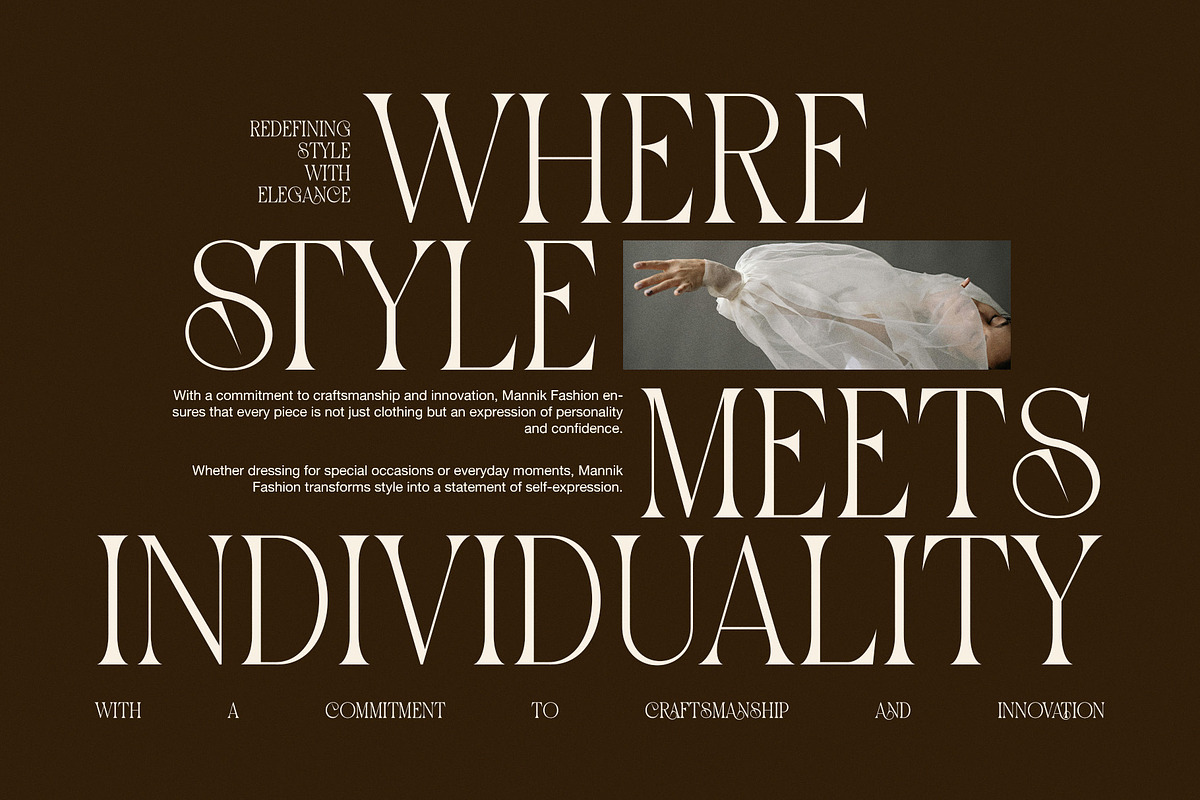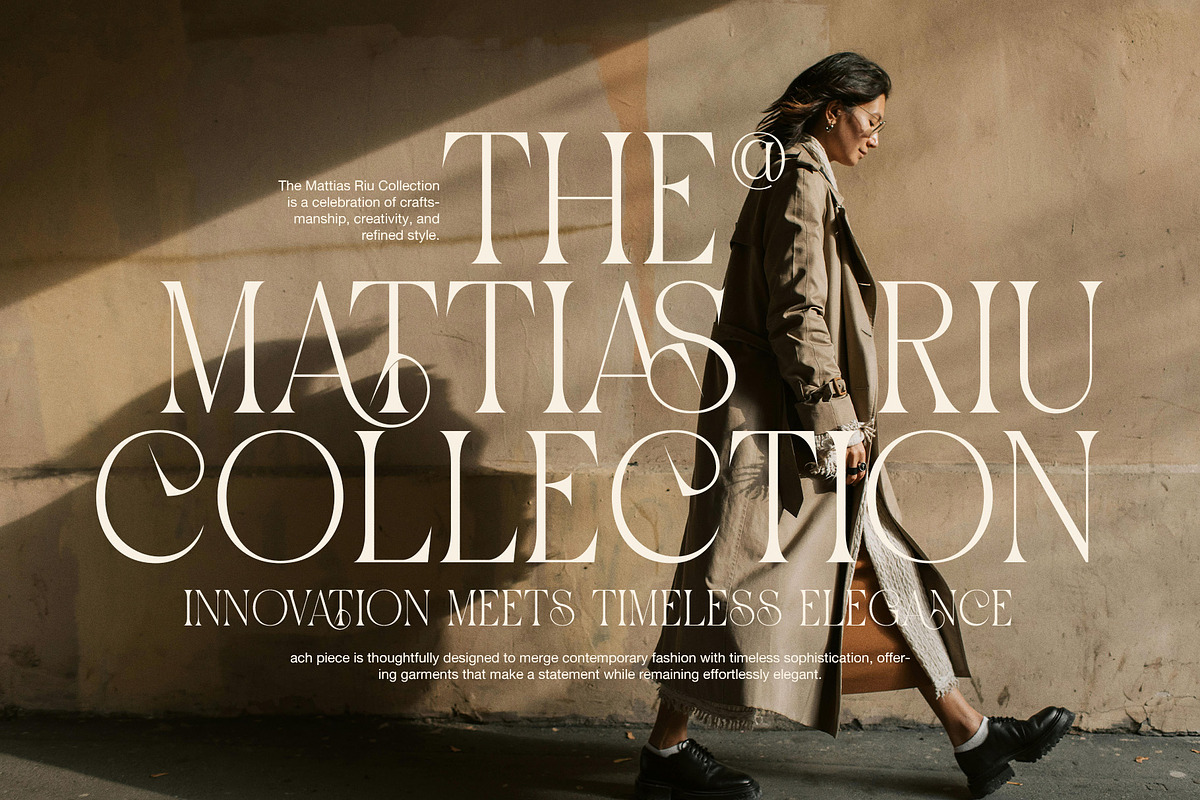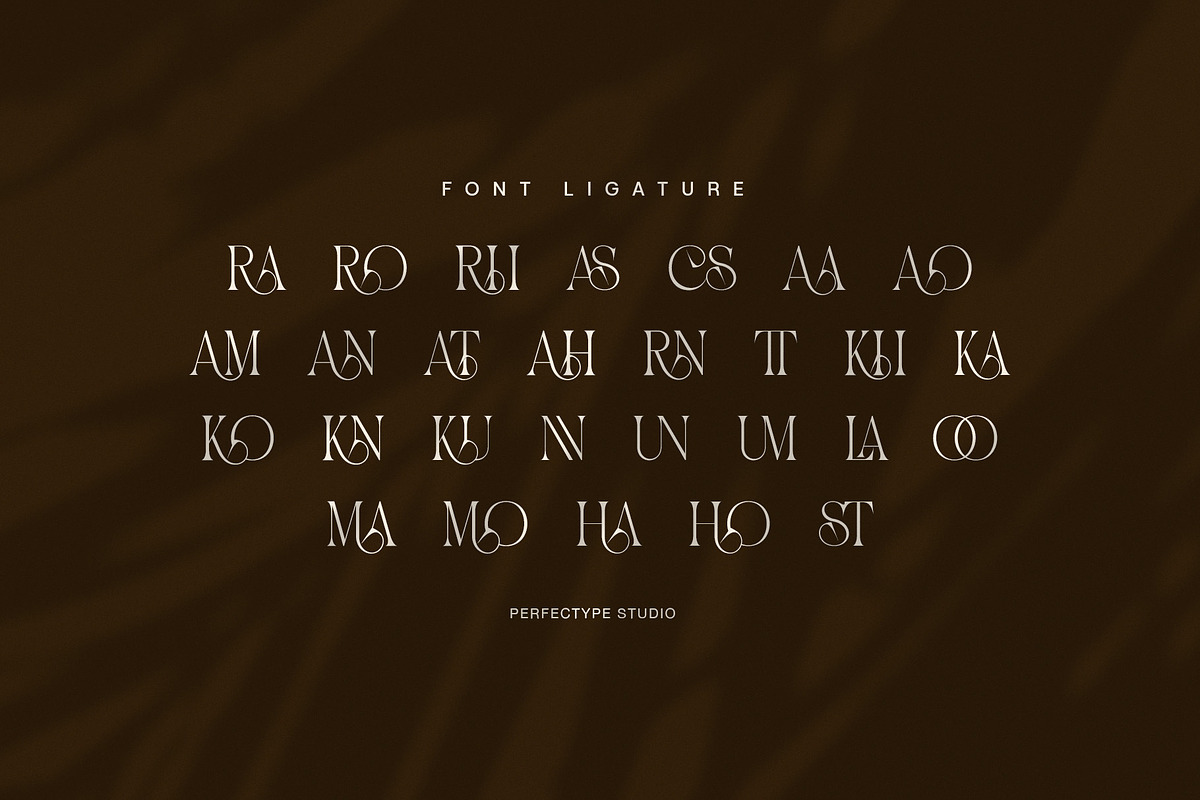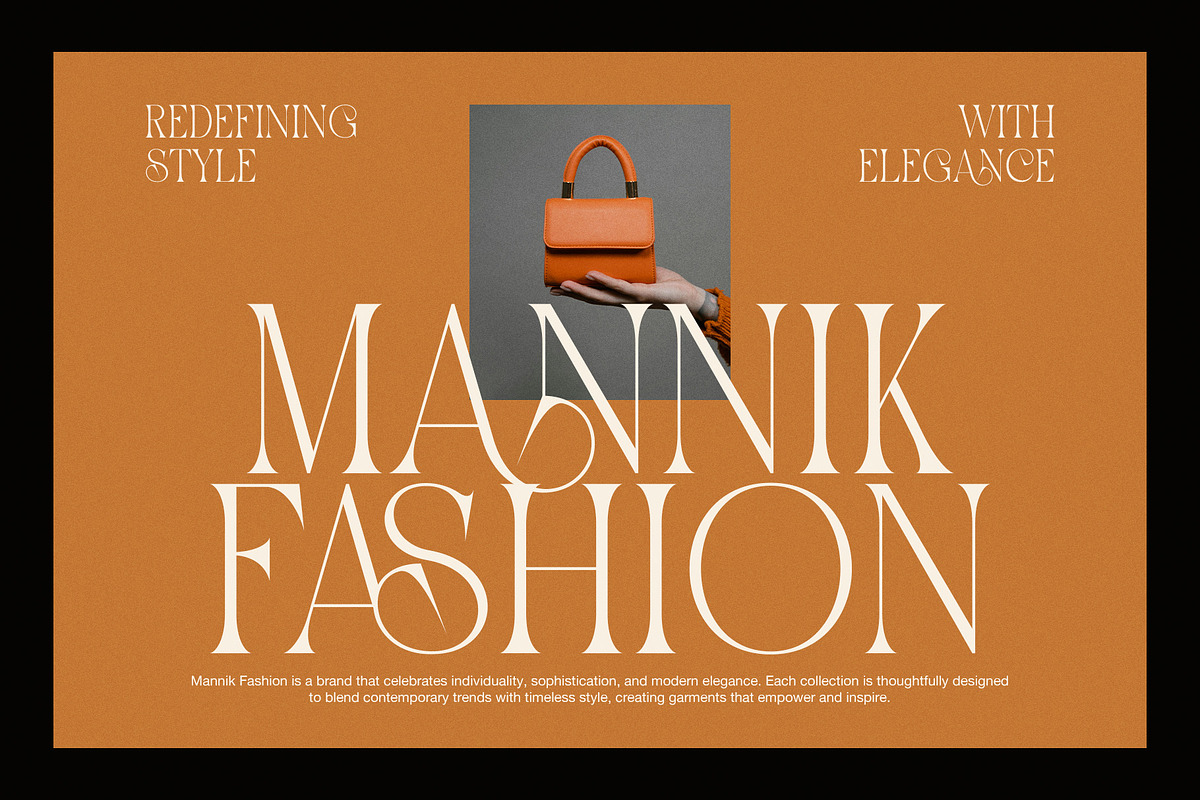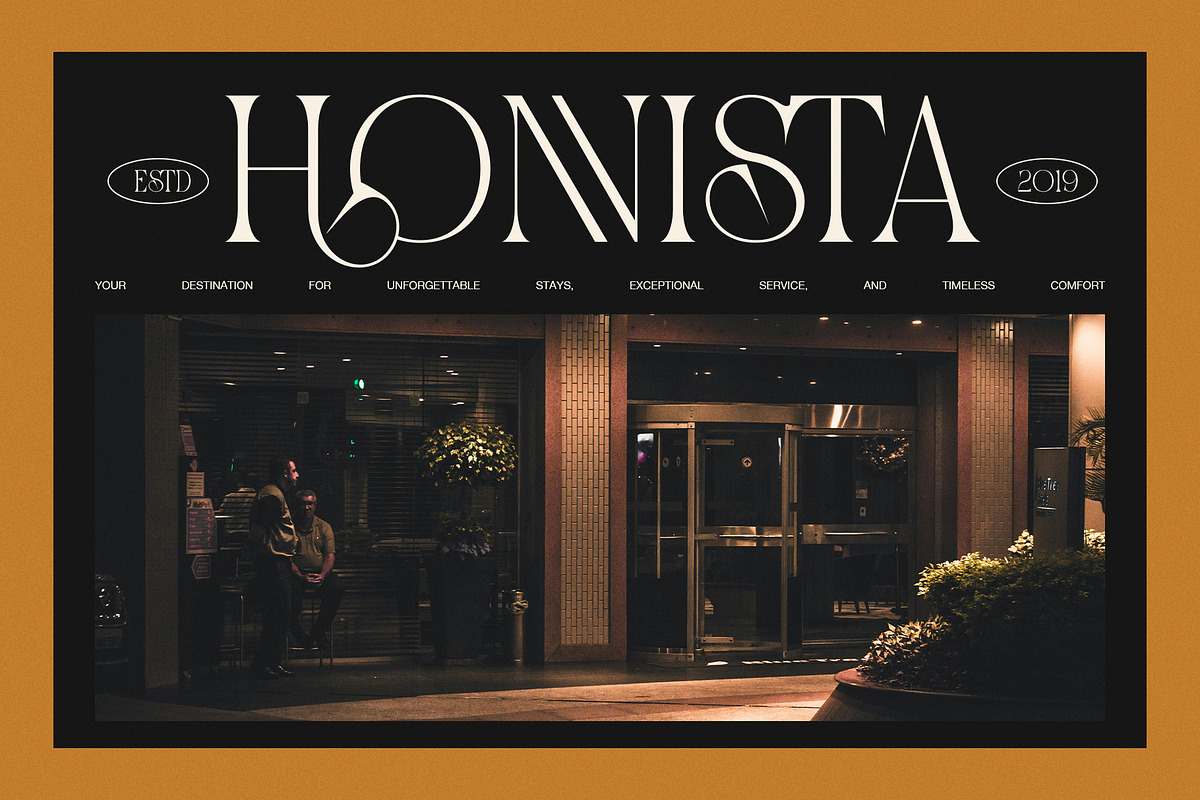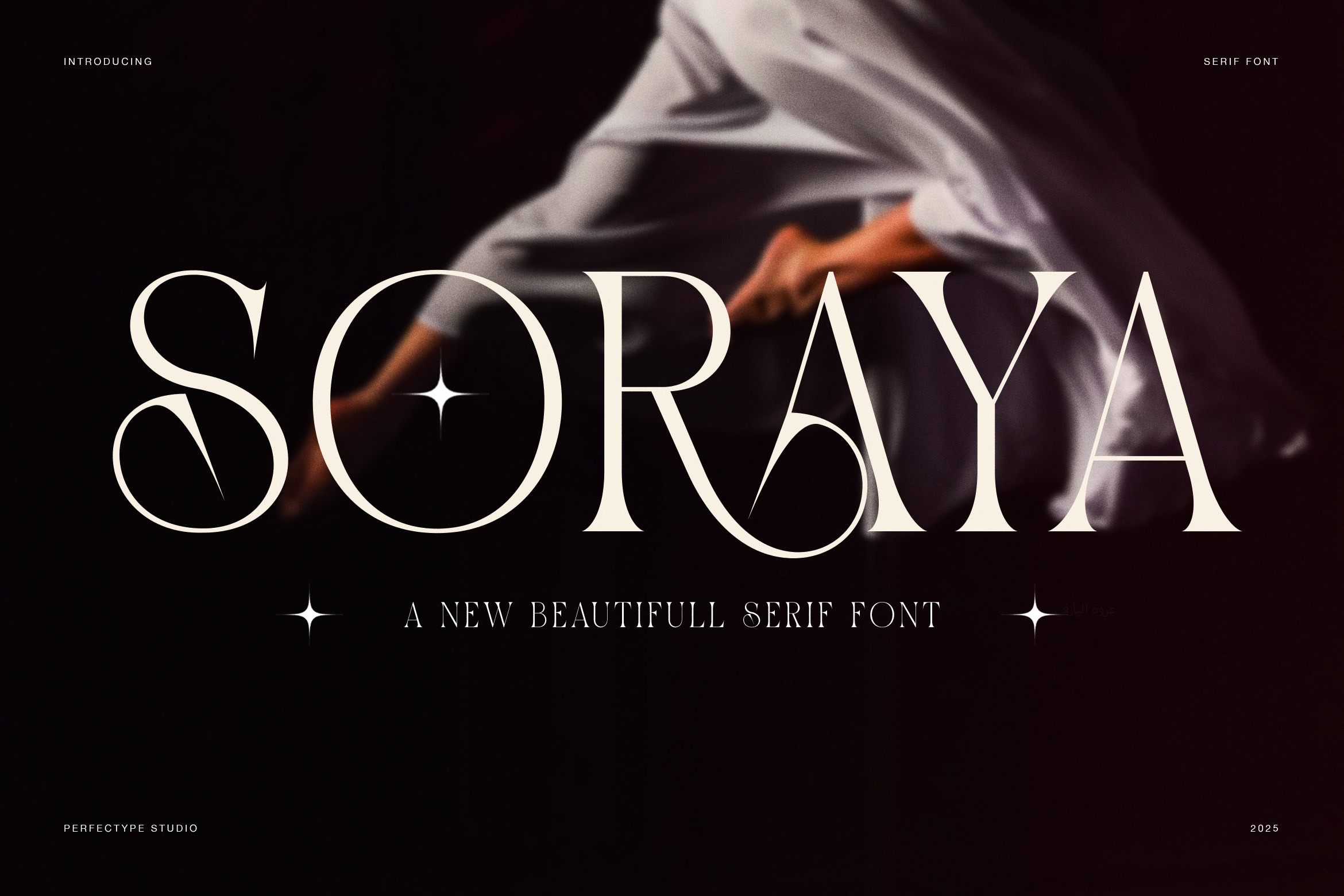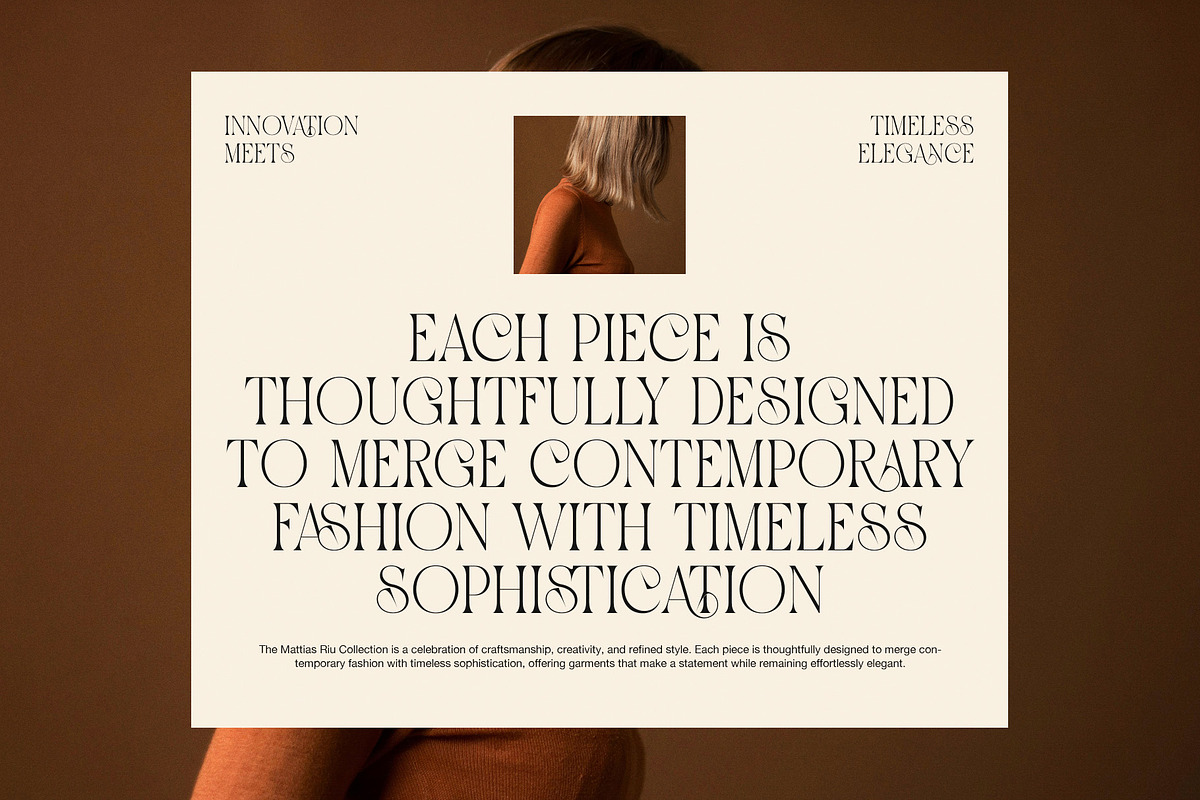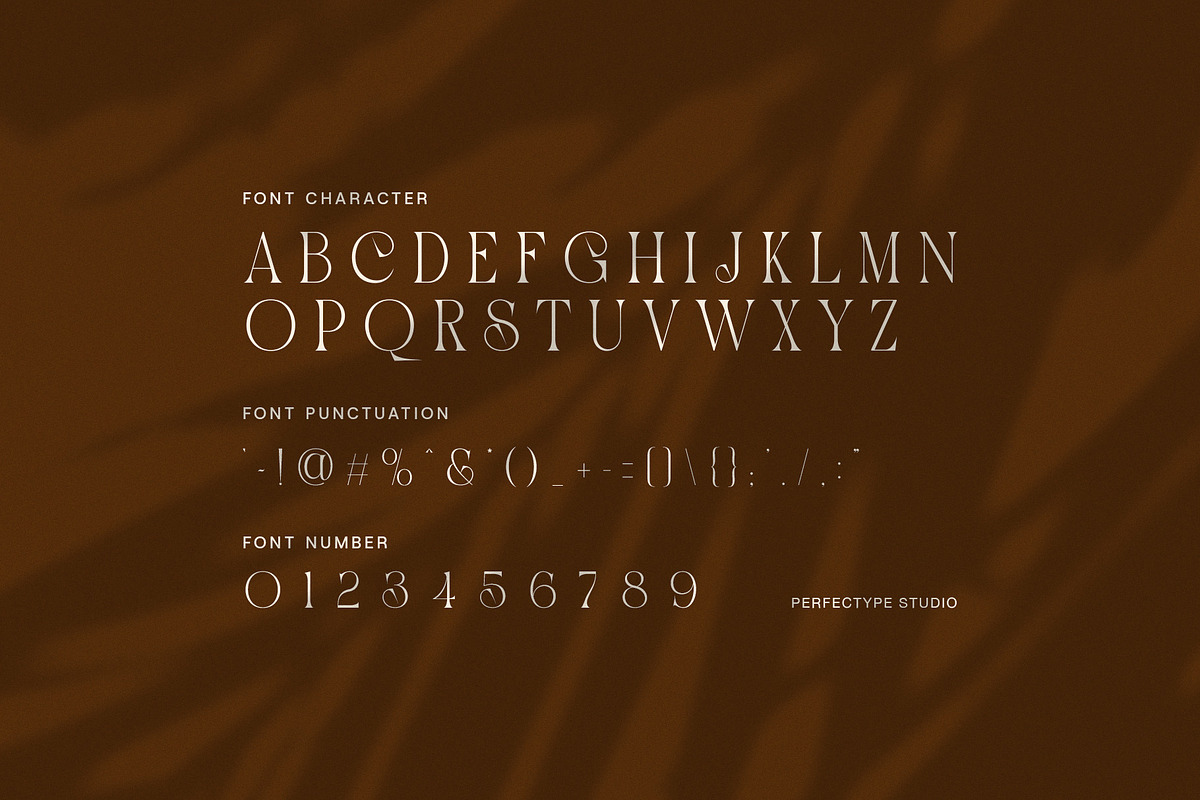
Soraya Elegant Display Serif Font
Soraya is an elegant display serif font created to express luxury, confidence, and timeless style. It blends refined serif construction with graceful curves and artistic details, which results in a typeface that feels expressive yet well balanced. Because of this harmony, Soraya delivers a strong visual presence without feeling heavy.
First of all, Soraya features sculpted letterforms with smooth contrast and flowing strokes. These shapes guide the eye naturally across the text, which improves readability while maintaining elegance. Moreover, the elongated terminals and decorative accents add sophistication and charm. As a result, Soraya stands out beautifully in headlines and brand statements.
In addition, Soraya includes alternate characters and refined ligatures that enhance creative flexibility. These features allow designers to create custom typographic compositions while keeping a cohesive aesthetic. Therefore, every layout can feel unique, artistic, and thoughtfully designed.
Furthermore, Soraya performs exceptionally well across many design applications. It is ideal for fashion branding, luxury advertising, editorial layouts, hotel identities, and lifestyle visuals. At the same time, it works smoothly in digital environments such as websites, social media graphics, and online campaigns. Because of its balanced proportions, Soraya remains elegant at both large and medium sizes.
Another important strength of Soraya is its emotional tone. The font communicates refinement, exclusivity, and confidence. Consequently, it supports storytelling and brand identity while enhancing the overall mood of the design. Designers can rely on Soraya to elevate content without distracting from the message.
Why choose Soraya Elegant Serif Font?
Elegant display serif with artistic curves
Alternates and ligatures for expressive typography
Ideal for luxury, fashion, and editorial design
Smooth contrast for comfortable readability
Suitable for print and digital projects
Timeless character with a premium feel
In conclusion, Soraya is more than a serif font. It is a refined design tool that enhances branding, editorials, and visual storytelling. Whether you are creating fashion campaigns, luxury packaging, or high-end advertisements, Soraya helps your work feel elegant, confident, and memorable.